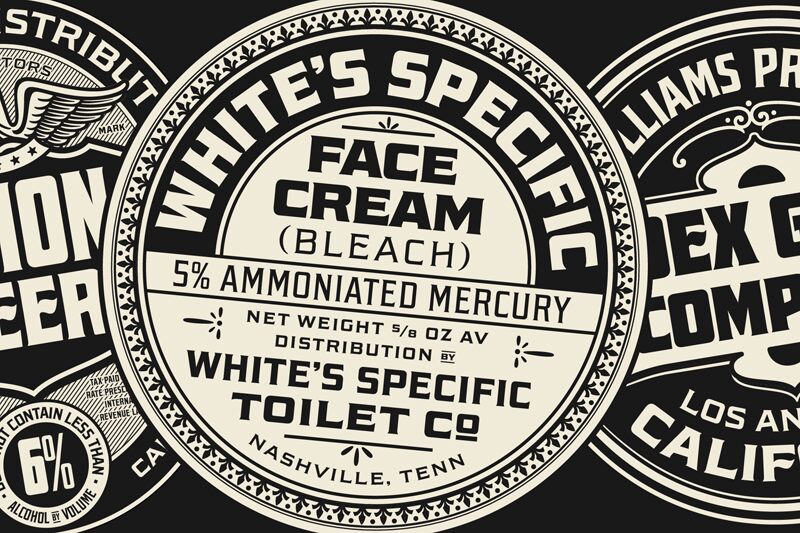
EFCO Colburn font by Ilham Herry is a bold, condensed display typeface that exudes retro charm. Its striking appearance makes it exceptionally suited for designs aiming to capture vintage aesthetics while remaining modern and engaging.
The heavy weight of the letters provides a strong visual impact, perfect for headlines, posters, and branding projects that need to stand out. As a free font available for download, EFCO Colburn offers designers an accessible option to inject personality into their work. Whether you're crafting nostalgic visuals or bold statements, this font delivers an effortlessly stylish look with a distinct character.
Perfect for both digital and print applications, EFCO Colburn is the ideal choice for creatives looking to make an impression in today’s design landscape.
EFCO Colburn